Bühnen Bern
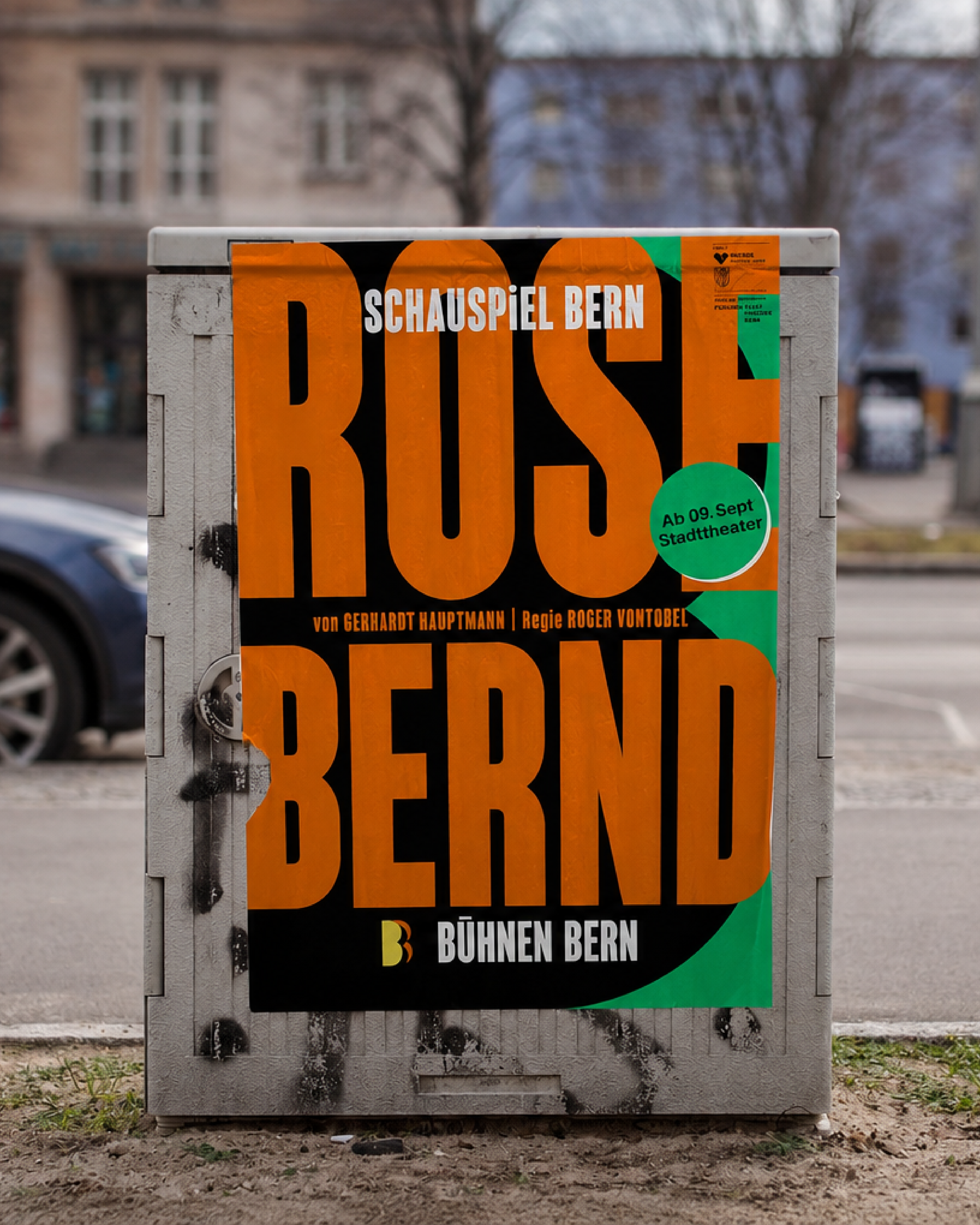
The Monopol typeface proved to be a fitting choice for the visual identity of Bühnen Bern. This uppercase display variant replaces umlauted and other accented characters with their lowercase equivalents. In addition to its expressive character, this approach allows for tighter and more compact poster typography.